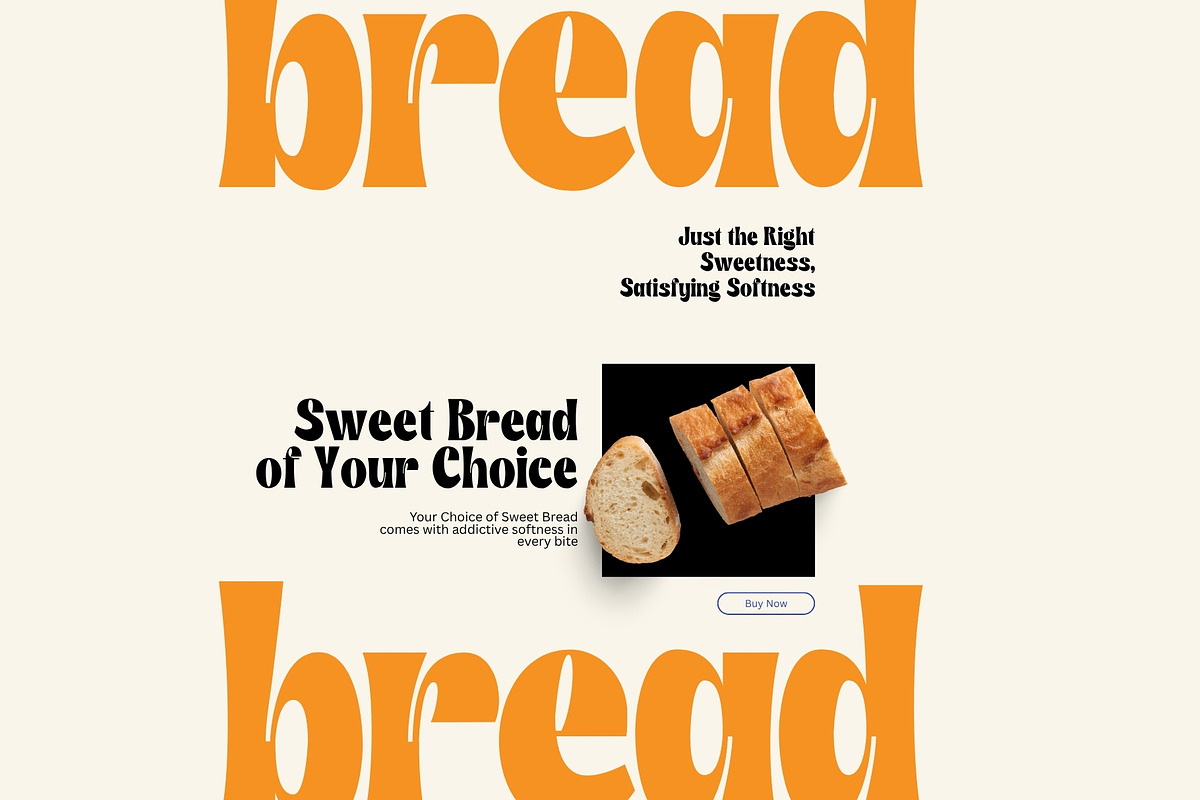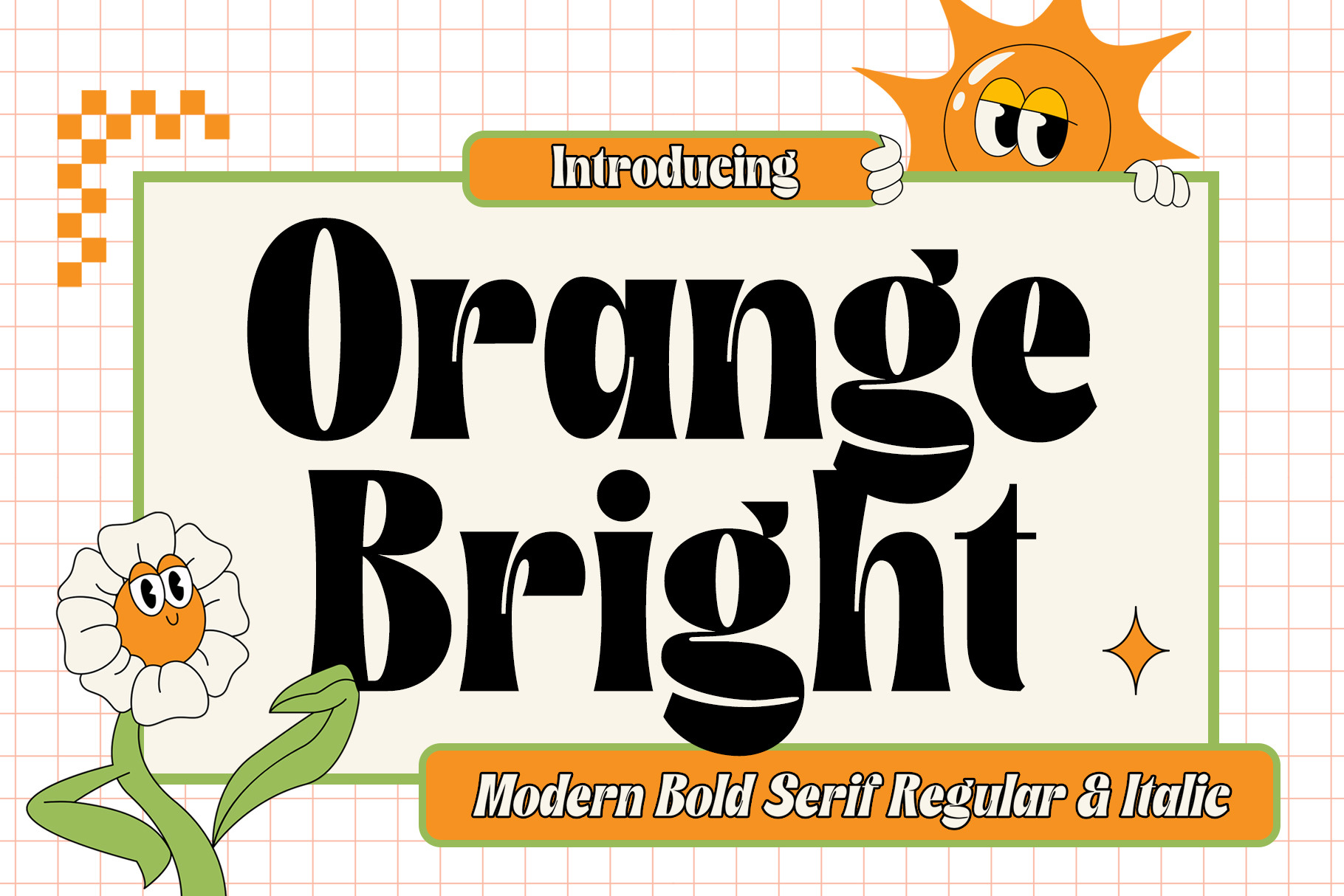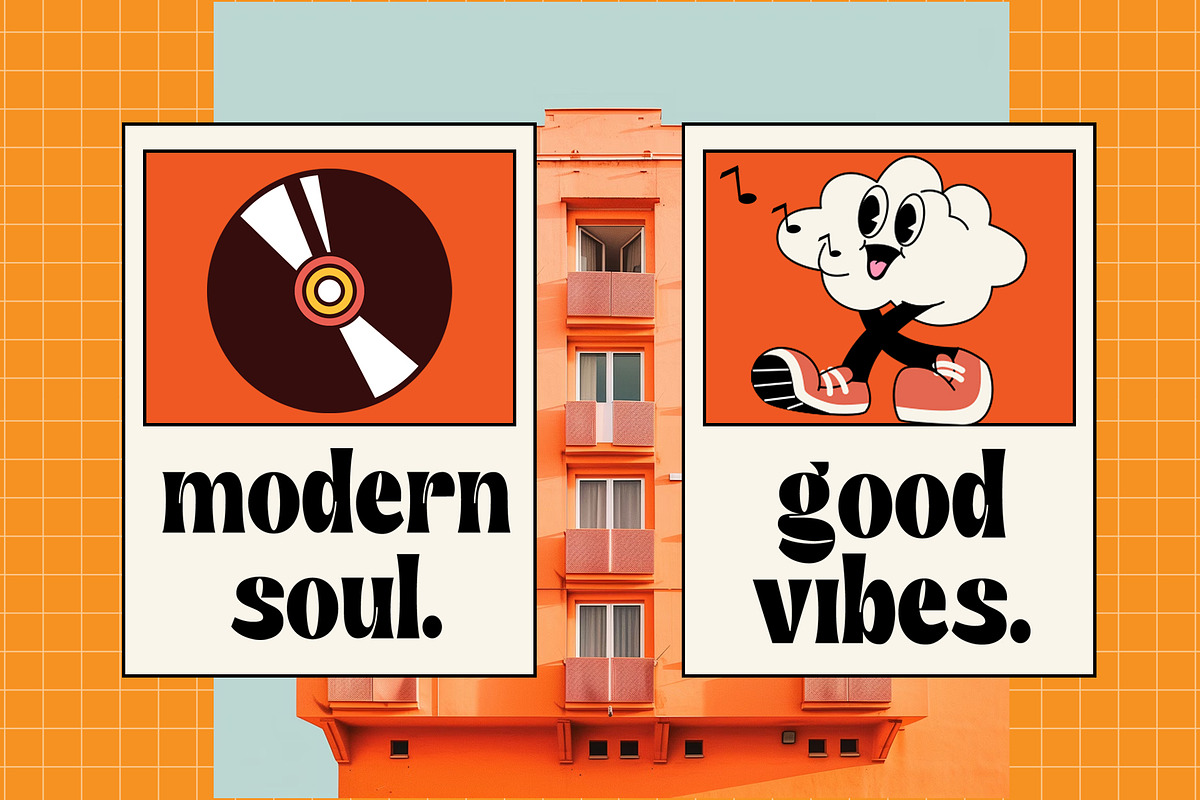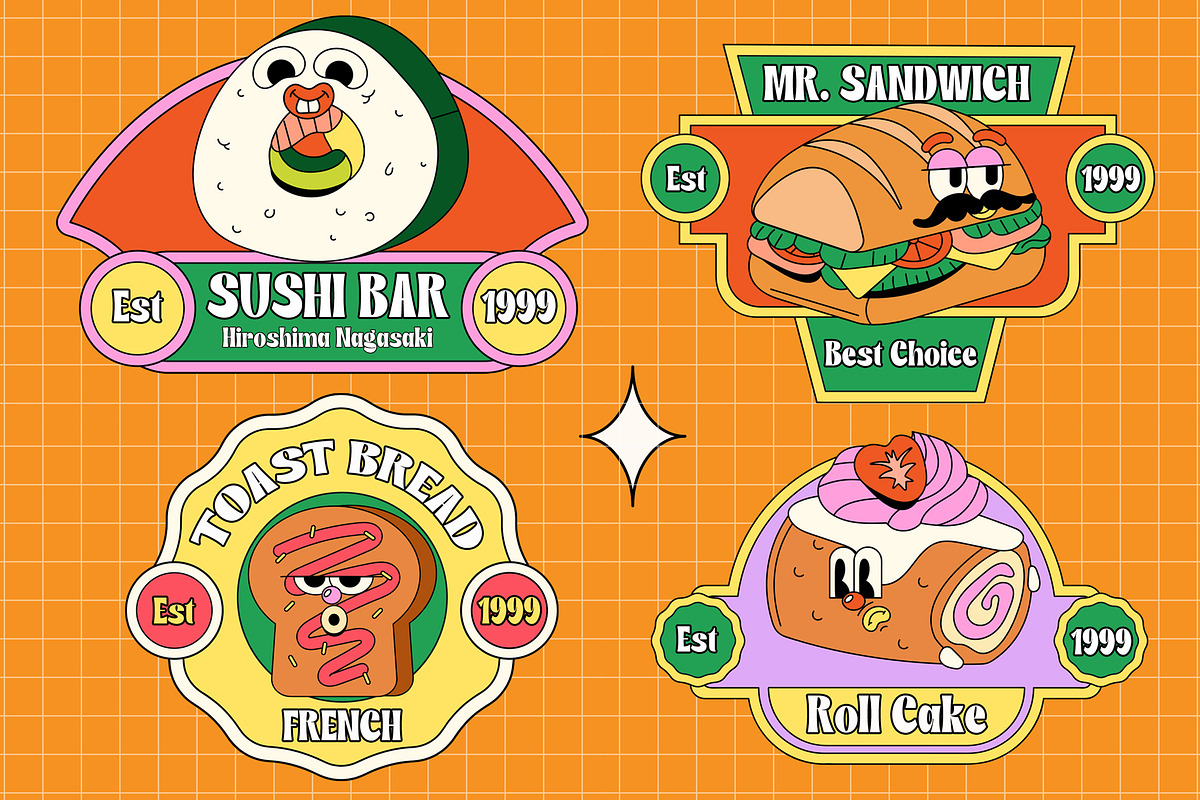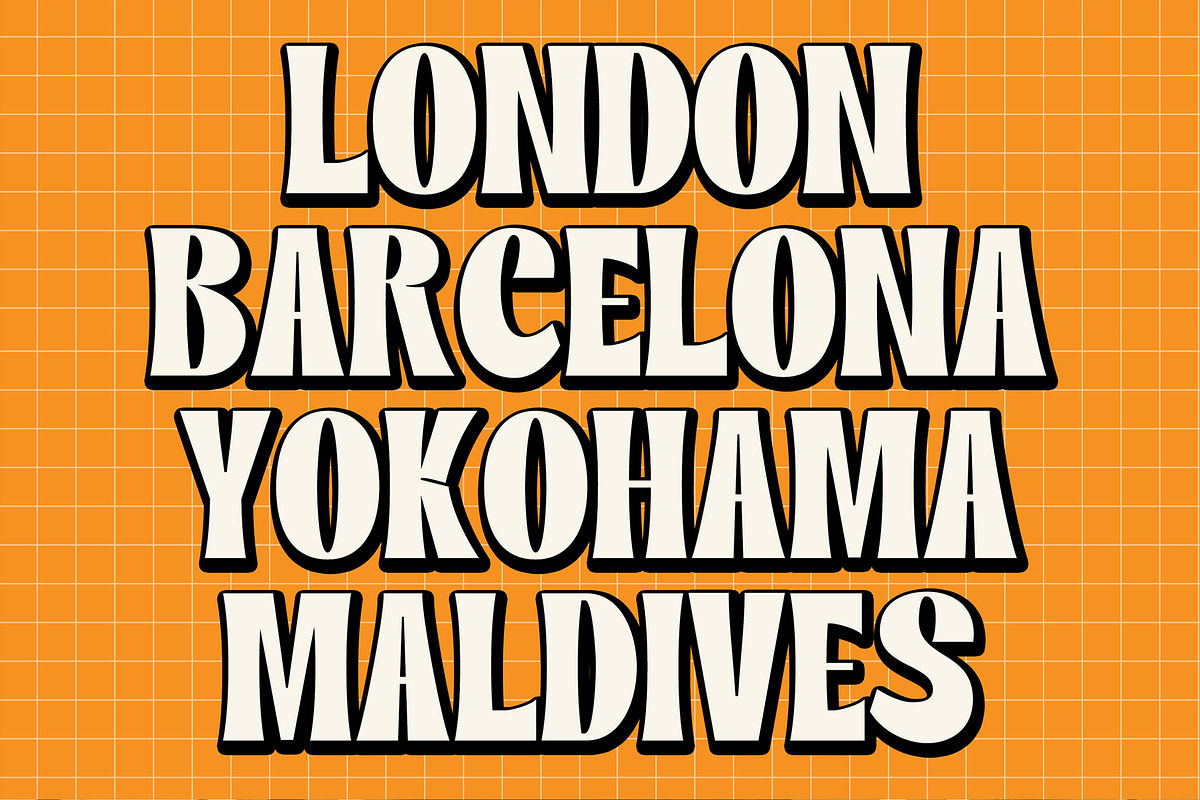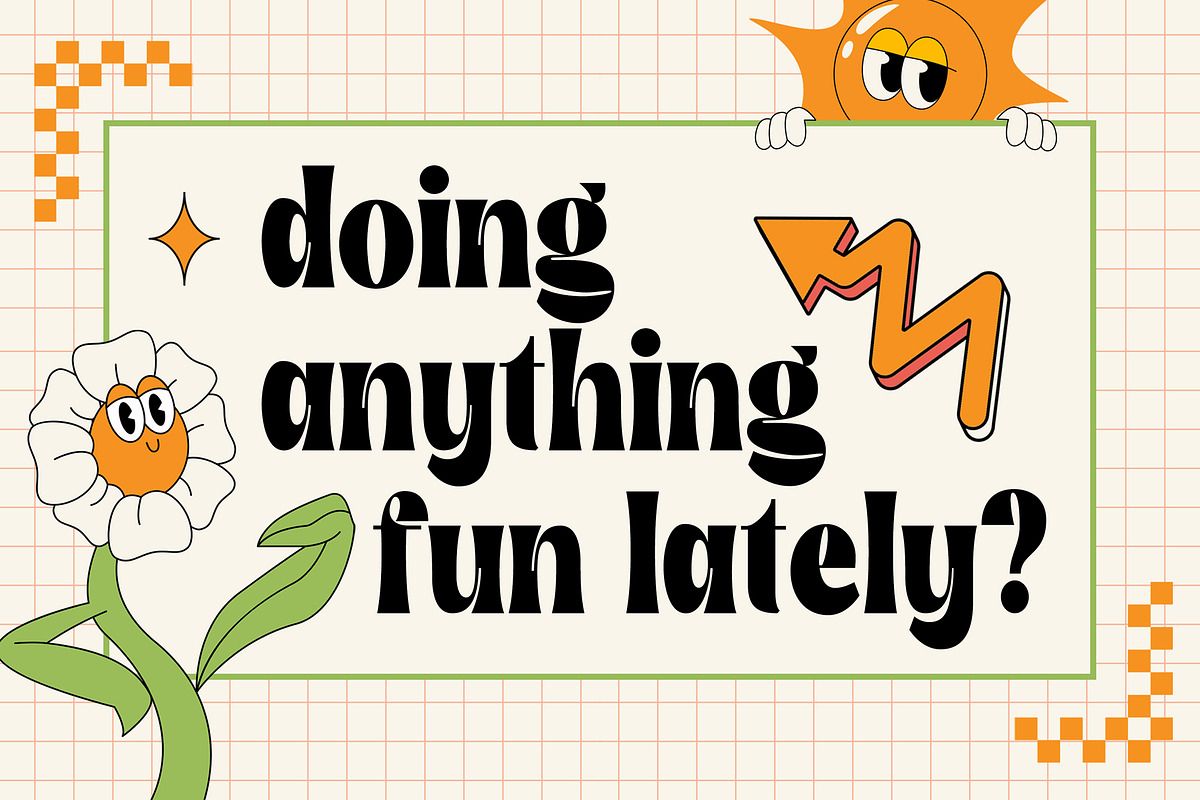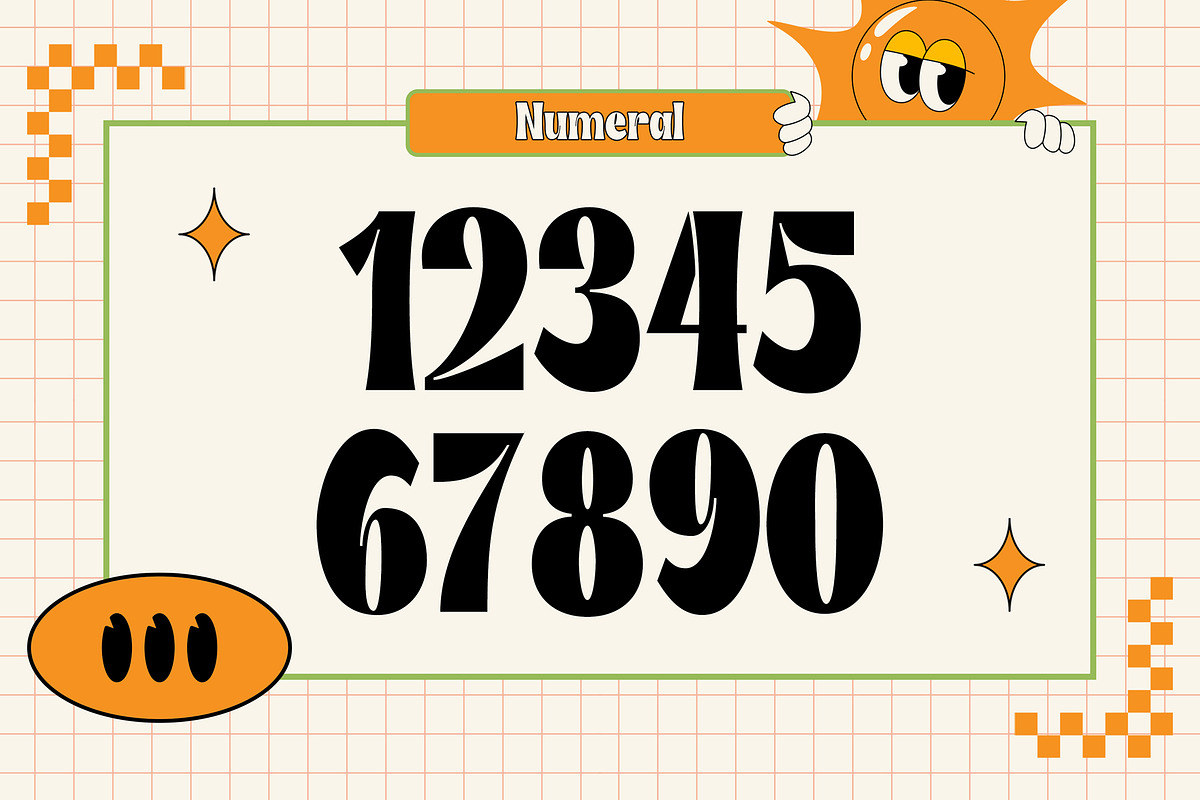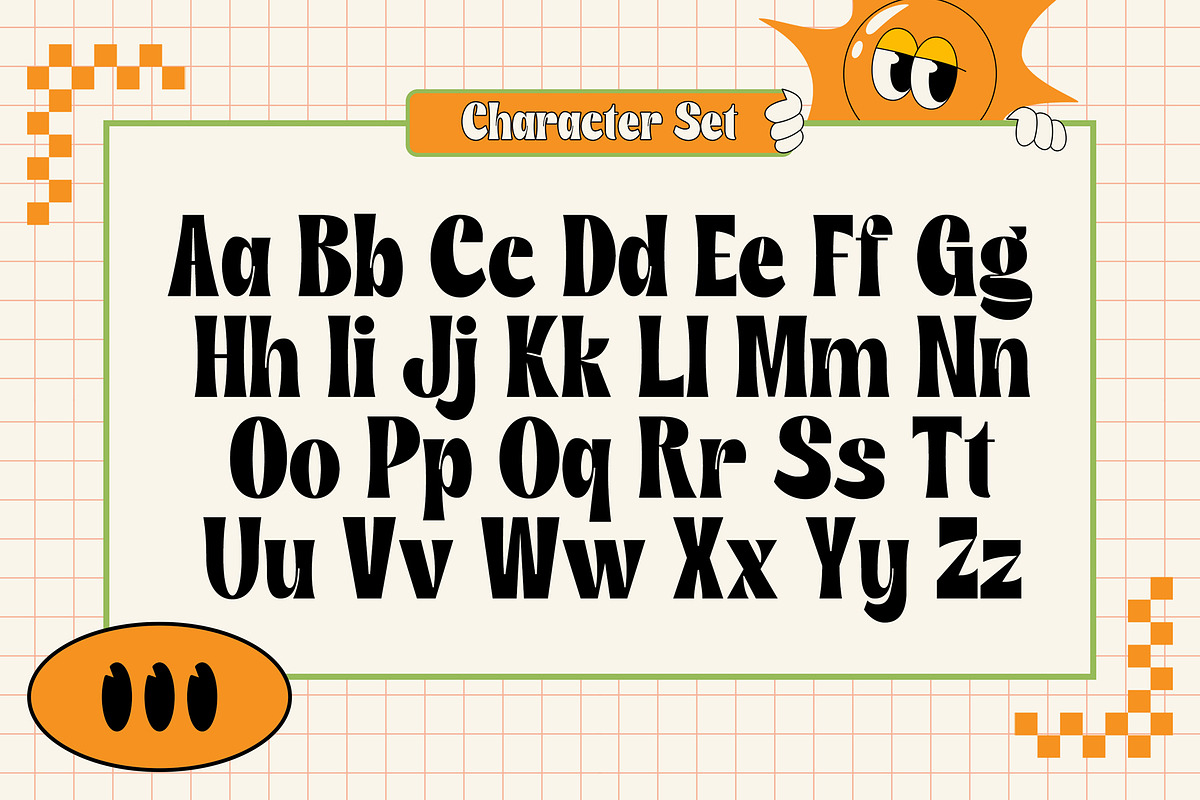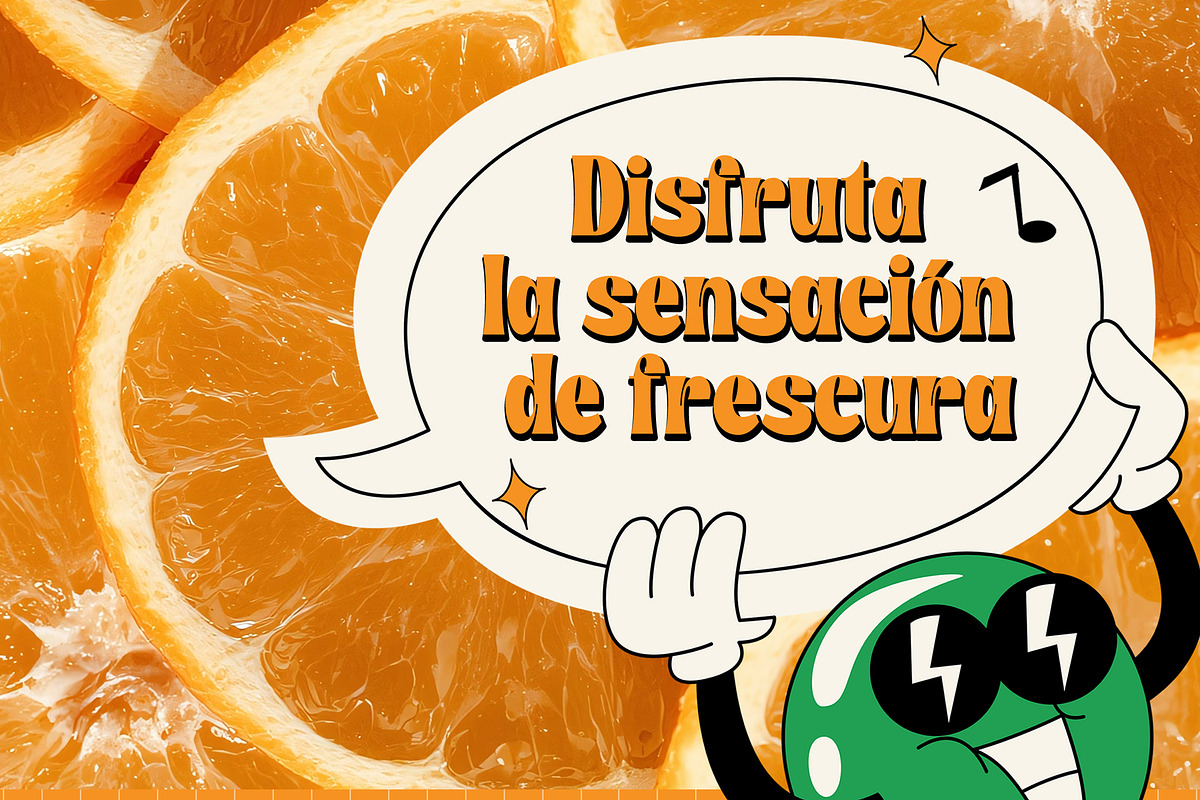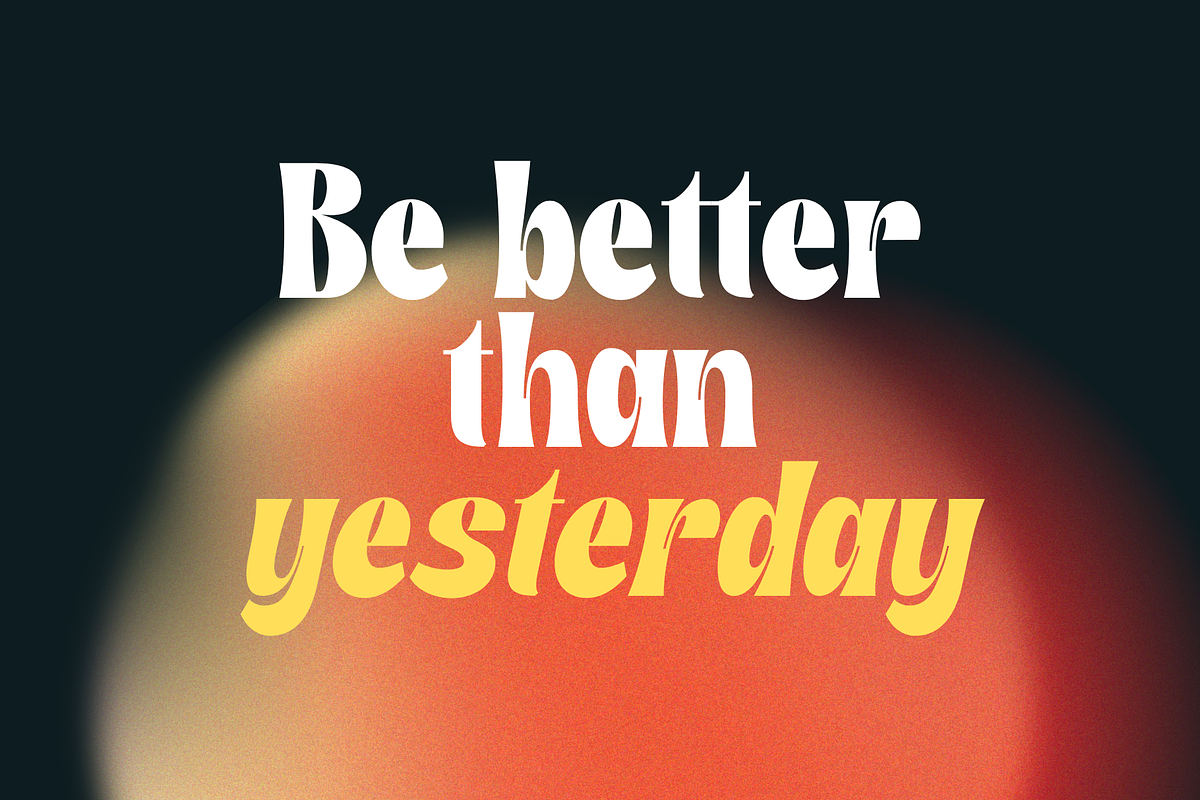
Orange Bright Bold Serif Font
Introducing Orange Bright, a modern bold serif font designed to bring confidence, creativity, and retro elegance into your typography projects. Featuring strong curves, high-contrast letterforms, and stylish italic alternatives, this typeface delivers a striking visual impact perfect for branding, editorials, logos, packaging, posters, social media graphics, fashion campaigns, and contemporary display designs.
Orange Bright combines vintage-inspired serif aesthetics with a modern artistic touch, making it suitable for both professional and playful layouts. The bold characters create powerful headlines, while the smooth italic style adds sophistication and personality to every composition. Its unique shapes and expressive details make your designs instantly eye-catching and memorable.
Whether you are creating luxury branding, trendy magazine covers, aesthetic packaging, or stylish advertising materials, Orange Bright helps your work stand out with elegance and charm. This versatile serif font is crafted for designers who want bold typography with a fashionable and creative vibe.